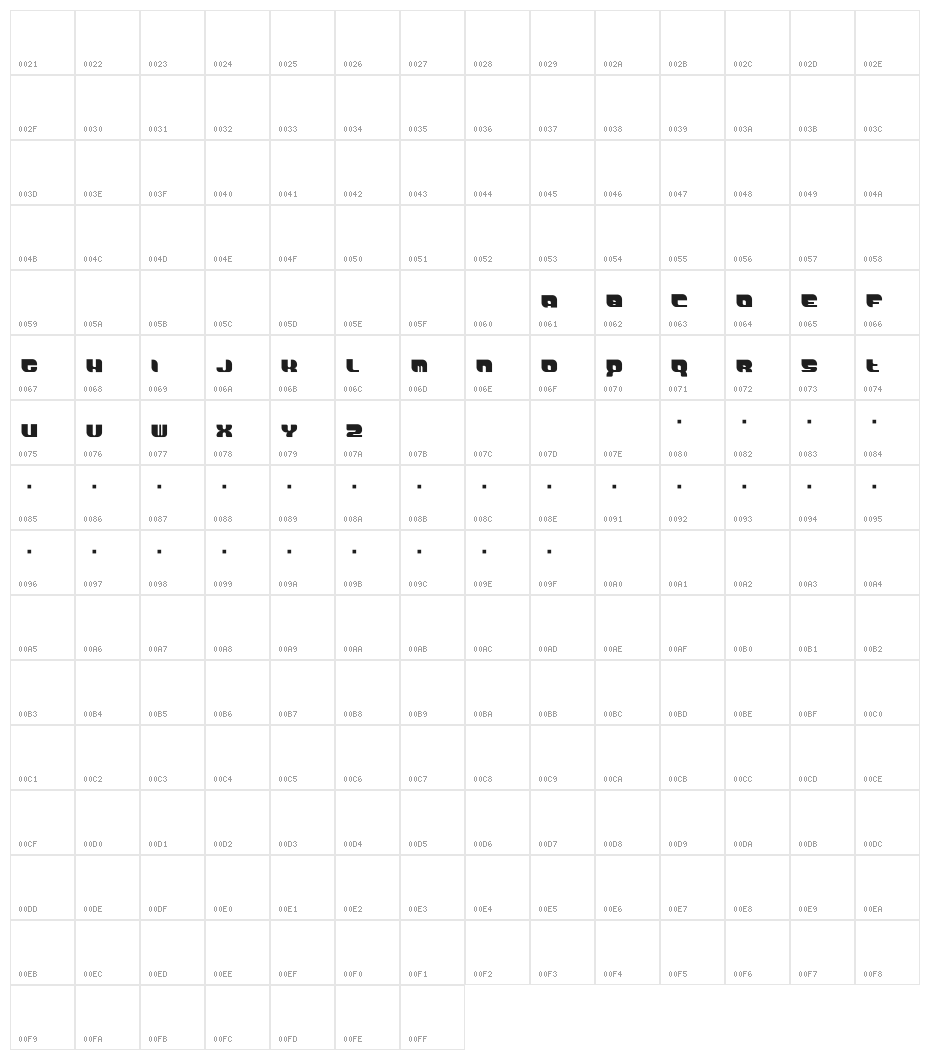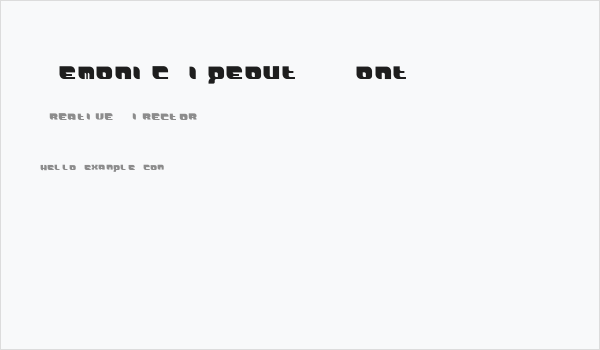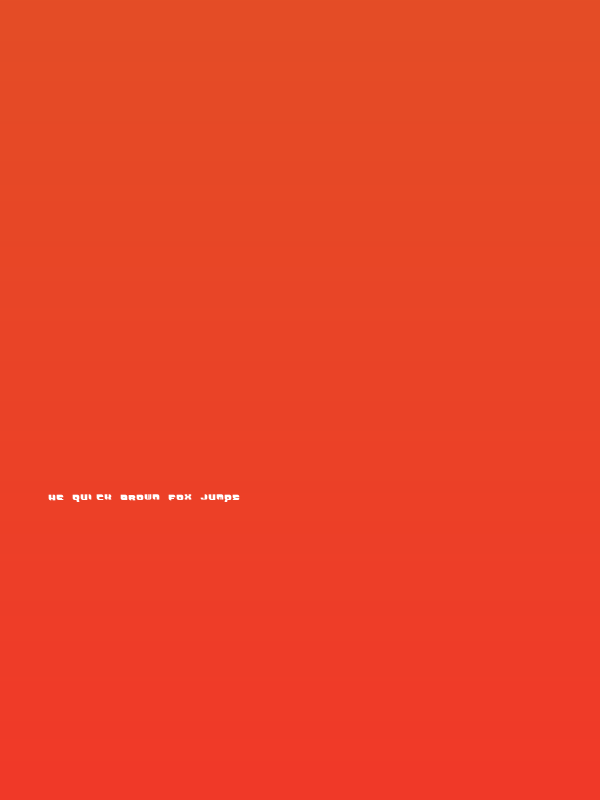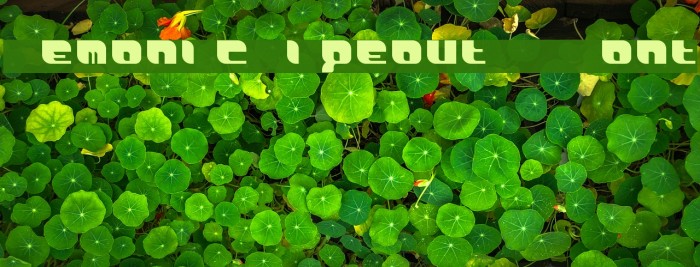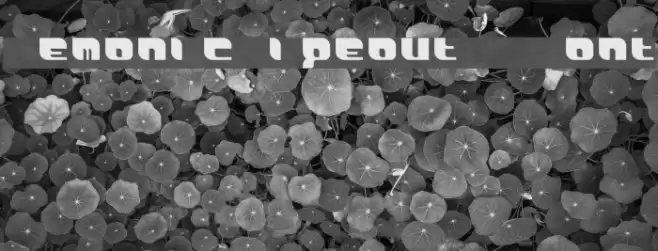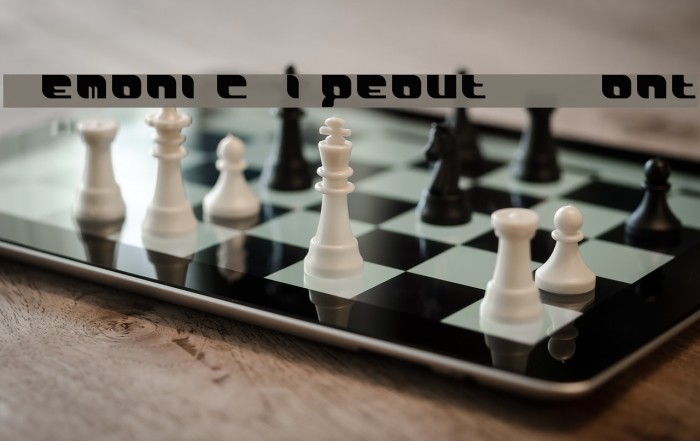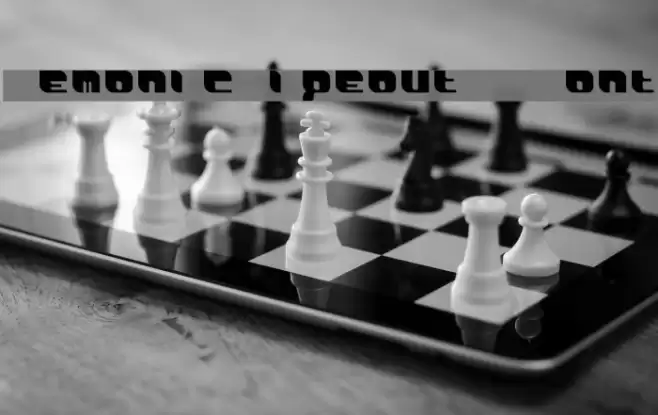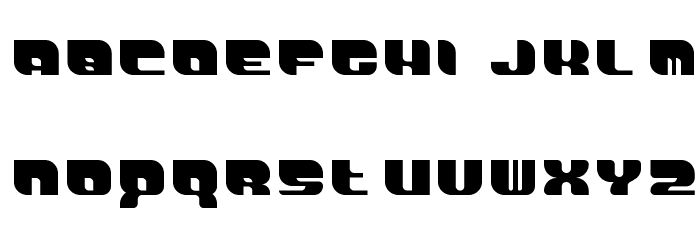
DemonicWipeoutXLFont Font
DemonicWipeoutXLFont Description
This font features a bold and futuristic design with a strong emphasis on geometric shapes and sharp angles. The characters are thick and blocky, giving a sense of strength and impact. The unique cutouts and negative spaces within each letter add a dynamic and edgy feel, making it stand out in any design. The uppercase and lowercase letters maintain a consistent style, while the numbers and special characters are designed to complement the overall aesthetic. This font is perfect for projects that require a modern and bold statement.
| Proposed Projects | Ideal for sci-fi posters, video game titles, branding for tech companies, and any project needing a futuristic edge. |